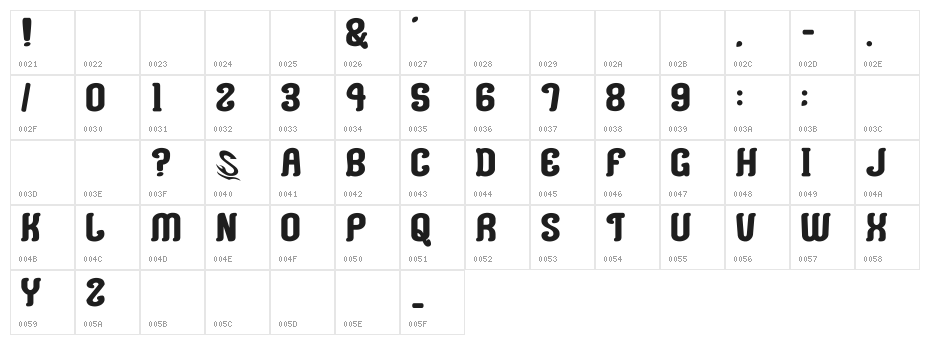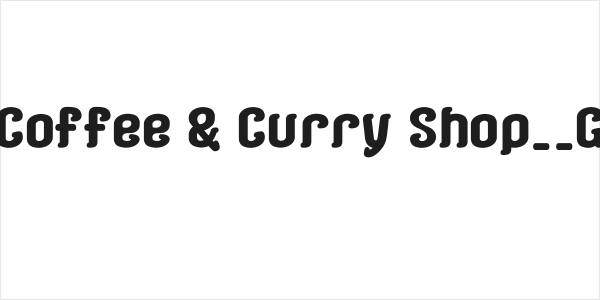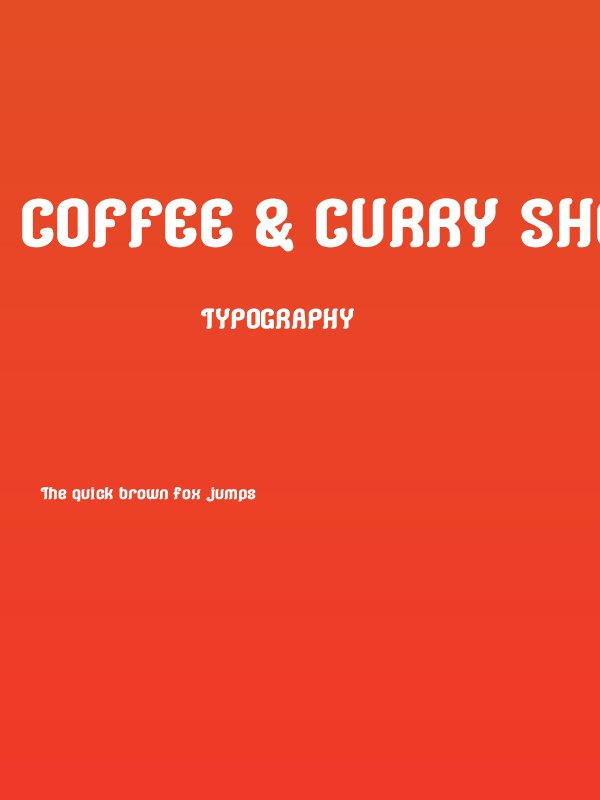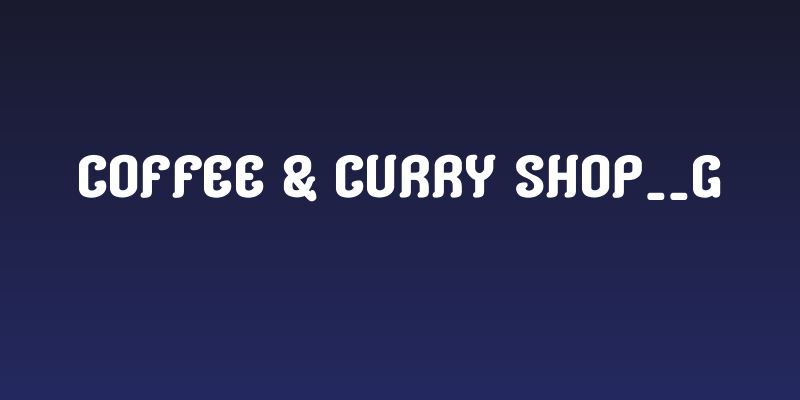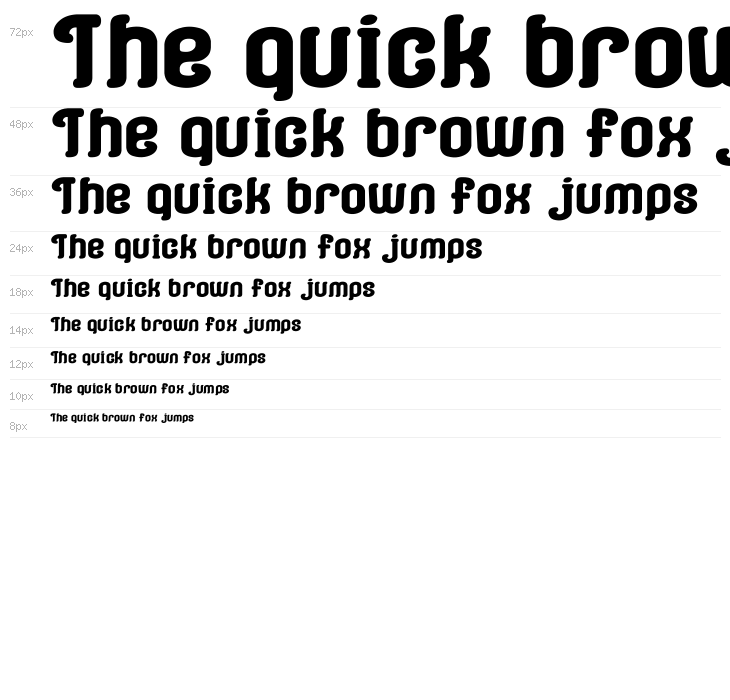
Coffee & Curry Shop__G Font
Coffee & Curry Shop__G Description
This font features a bold and playful design with rounded edges and a slightly condensed form. The characters exhibit a unique blend of retro and modern styles, making them stand out with their thick strokes and smooth curves. The uppercase and lowercase letters maintain a consistent style, while the numerals and special characters complement the overall aesthetic. The font's design is both eye-catching and legible, suitable for various creative applications.
| Overall Style | Retro, Modern |
| Proposed Projects | Ideal for branding, posters, packaging, and any project requiring a fun and engaging typeface. |